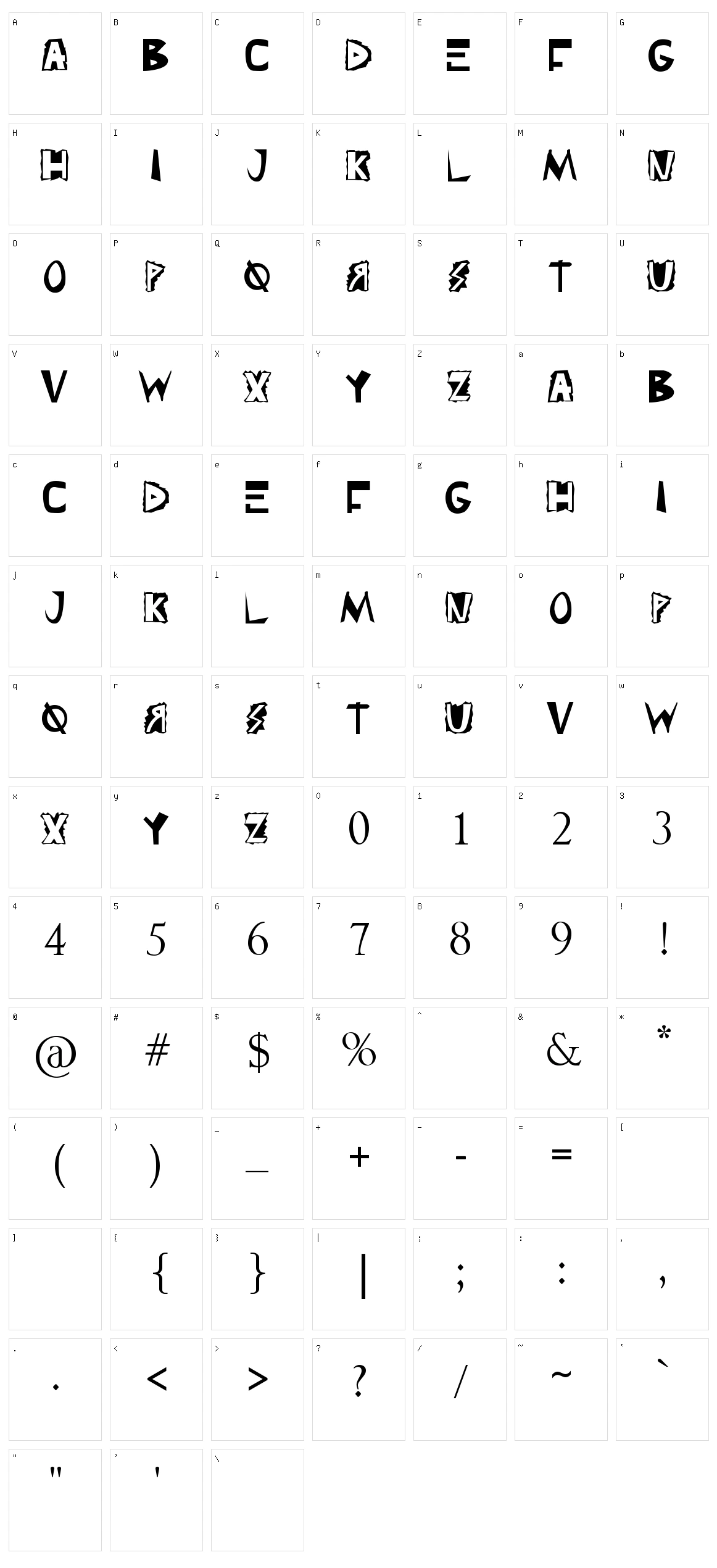
The free font Punks is carefully designed by Juan Felipe Chaparro, showcasing a thoughtful balance of creativity and usability and falls under the Destroy font style. When you download the ZIP file, it contains only 12.32 KB of font files, making it lightweight and quick to download. Please review the license details below to understand permitted usage and distribution rights. If license information is not available, we recommend using this font for personal projects only or contacting the author directly for commercial usage permissions.